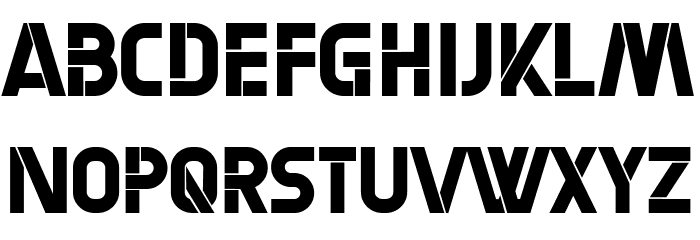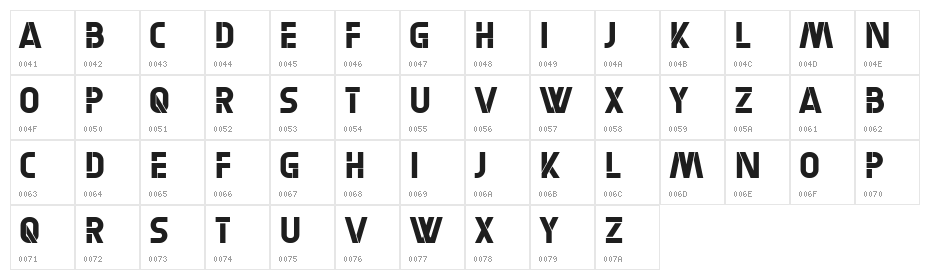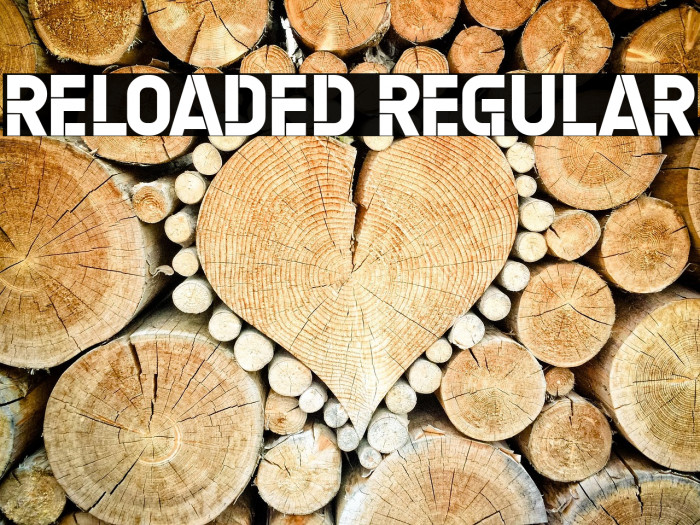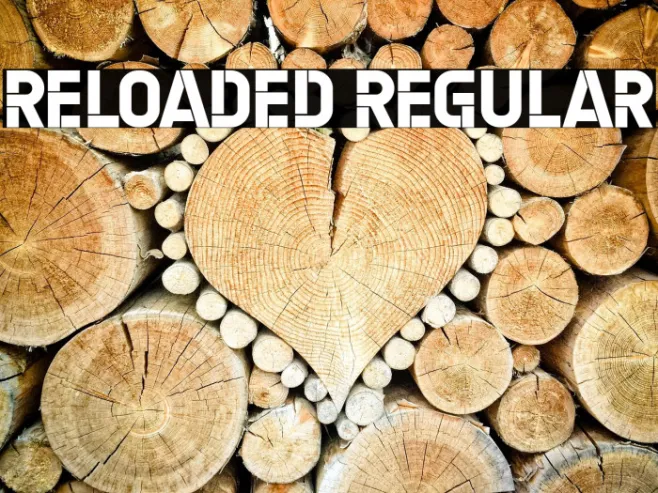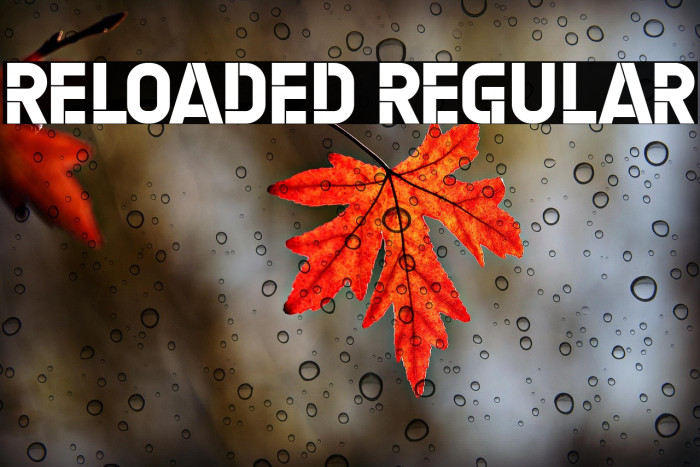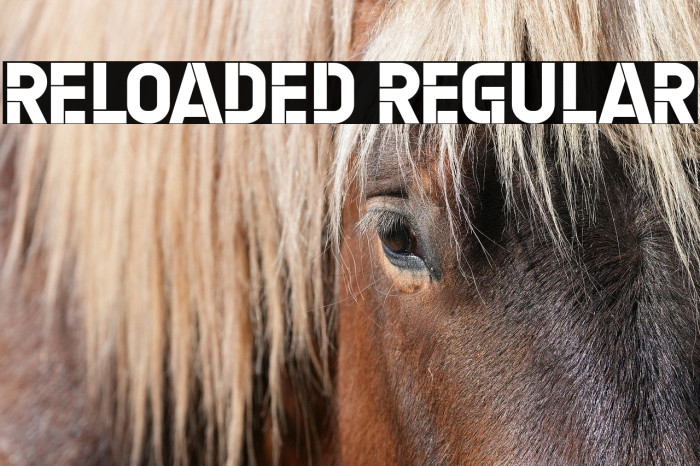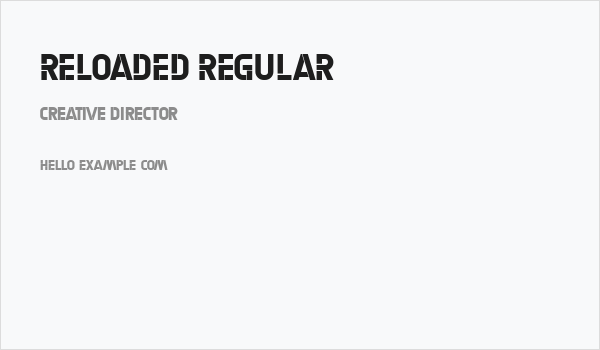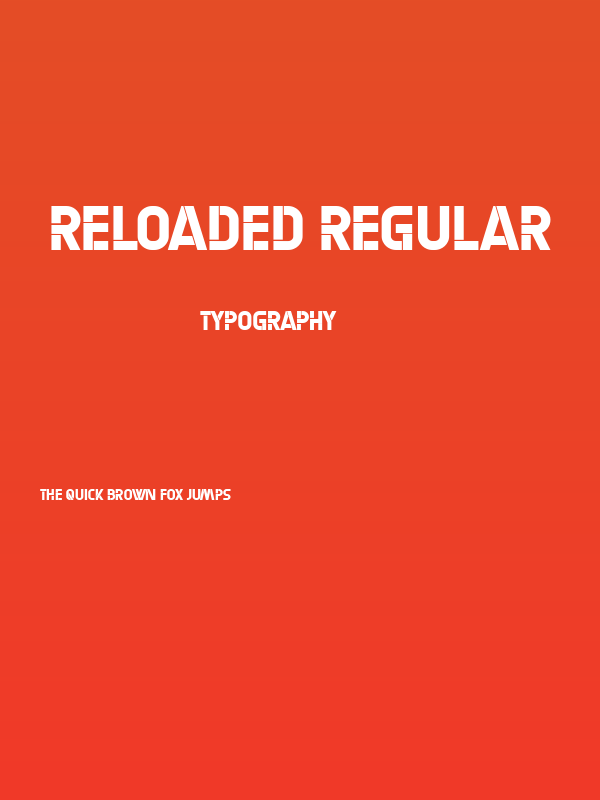
Reloaded Regular Font
Reloaded Regular Description
This font features a bold and striking design with a modern, geometric aesthetic. The characters are constructed with thick, uniform strokes that create a strong visual impact. The angular cuts and sharp edges give it a futuristic feel, while the consistent weight across all characters ensures readability. The font's unique style is characterized by its blocky appearance and the use of negative space within certain letters, adding to its dynamic and edgy look. It's ideal for projects that require a bold statement or a contemporary vibe.
| Proposed Projects | Ideal for branding, posters, headlines, and any design that requires a strong, modern aesthetic. |